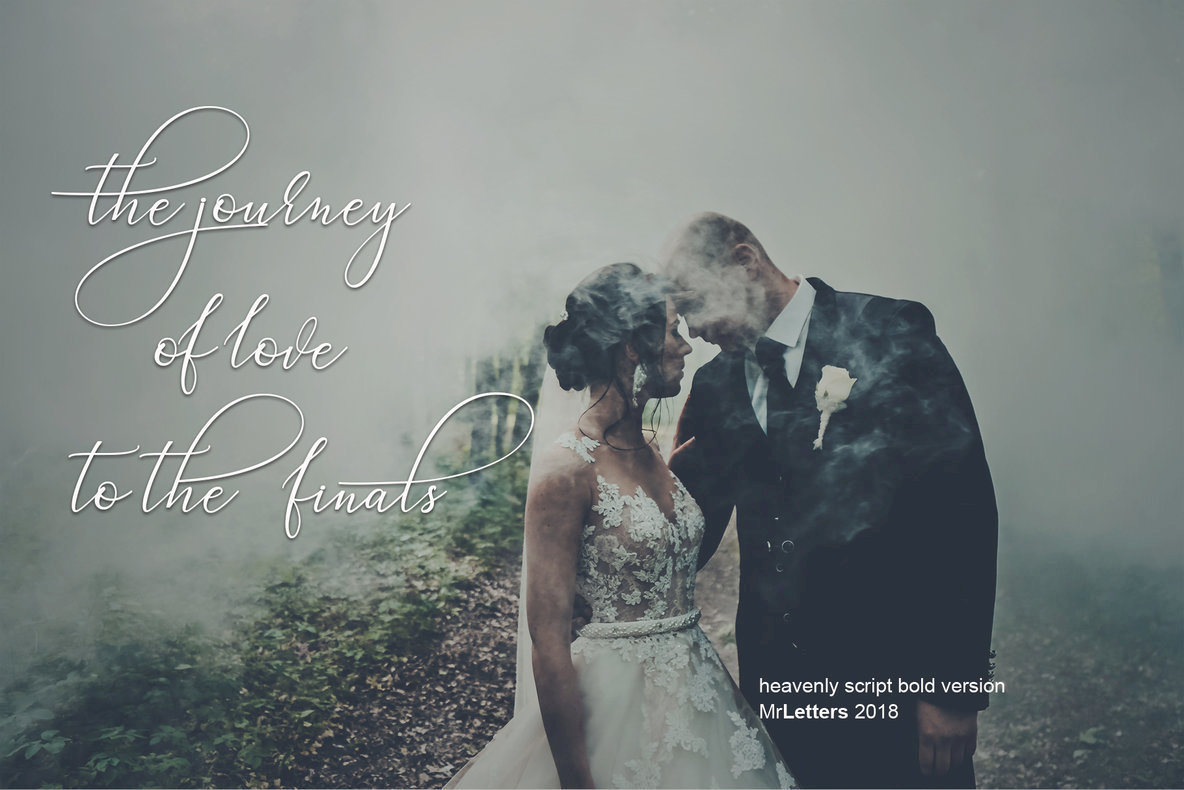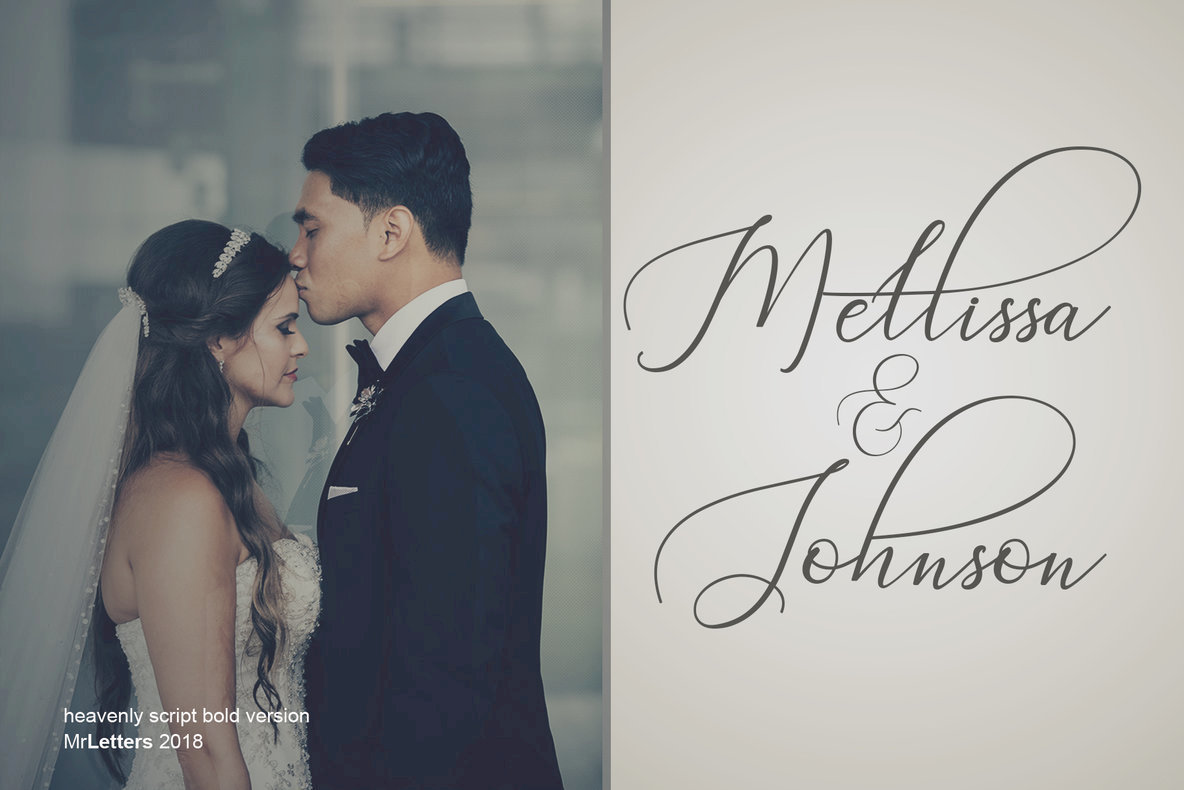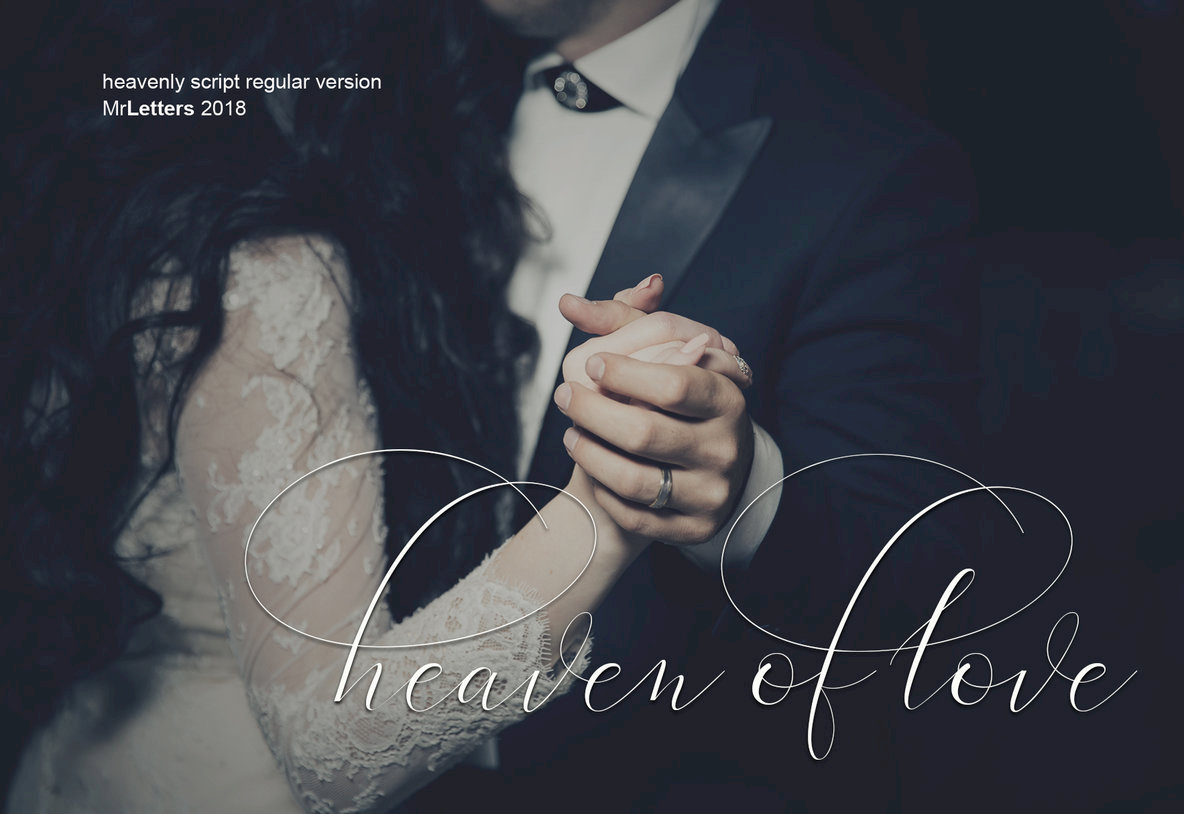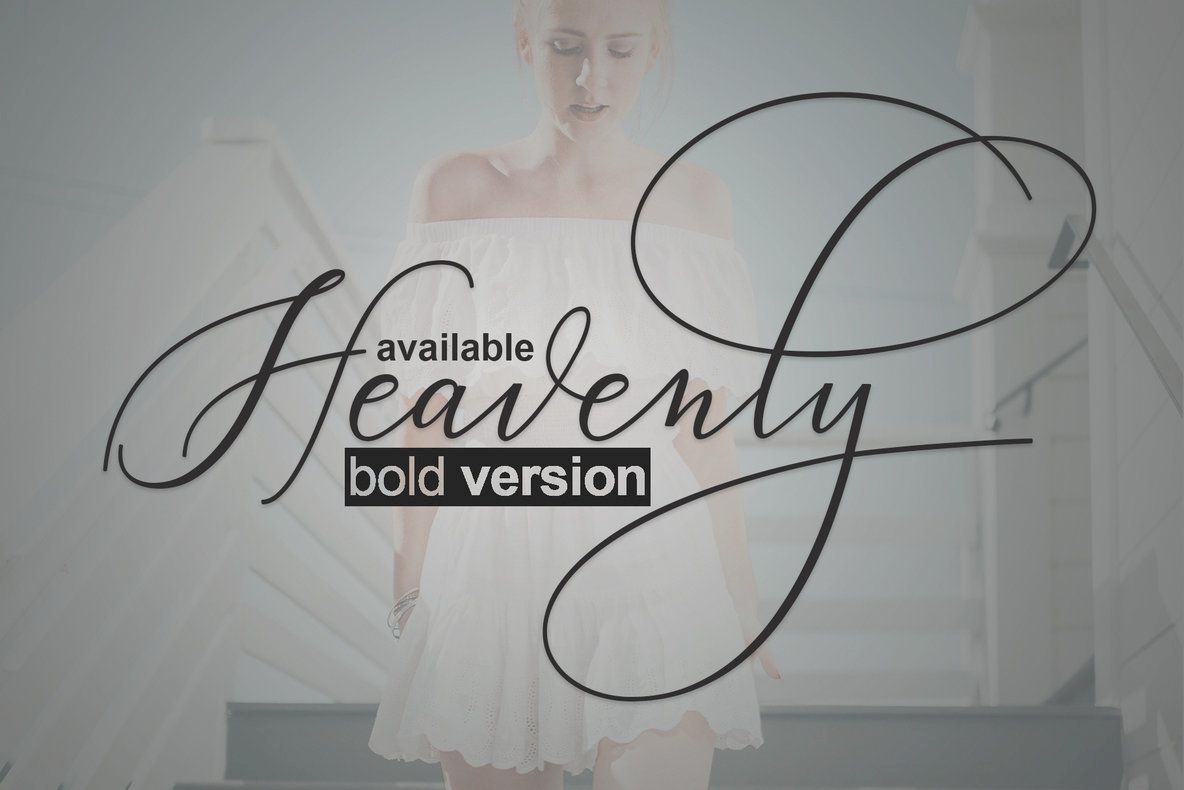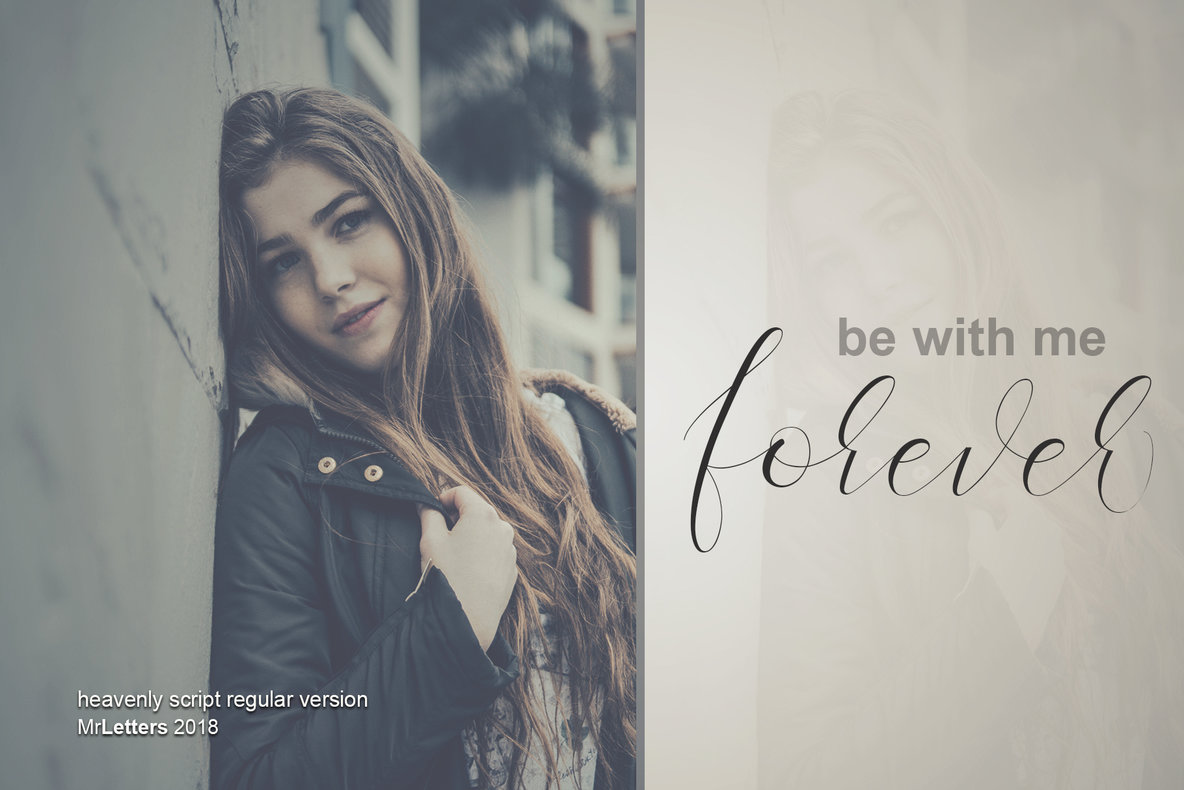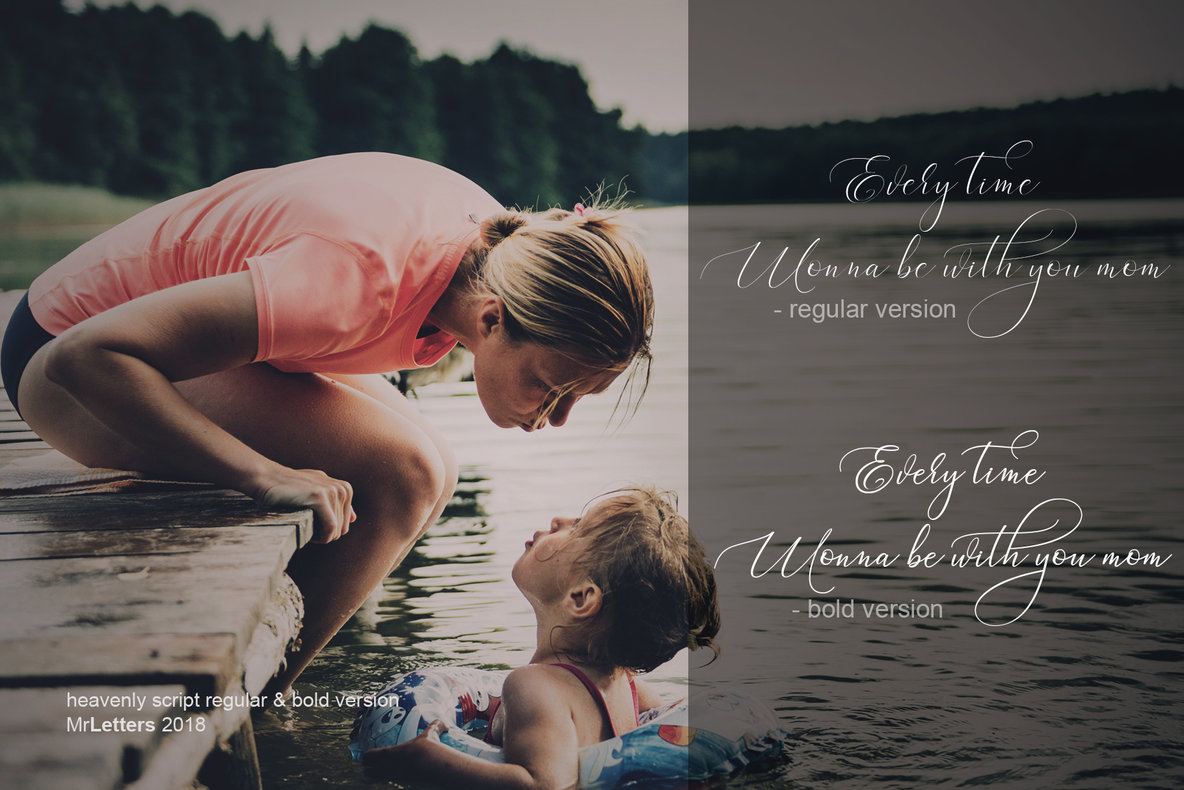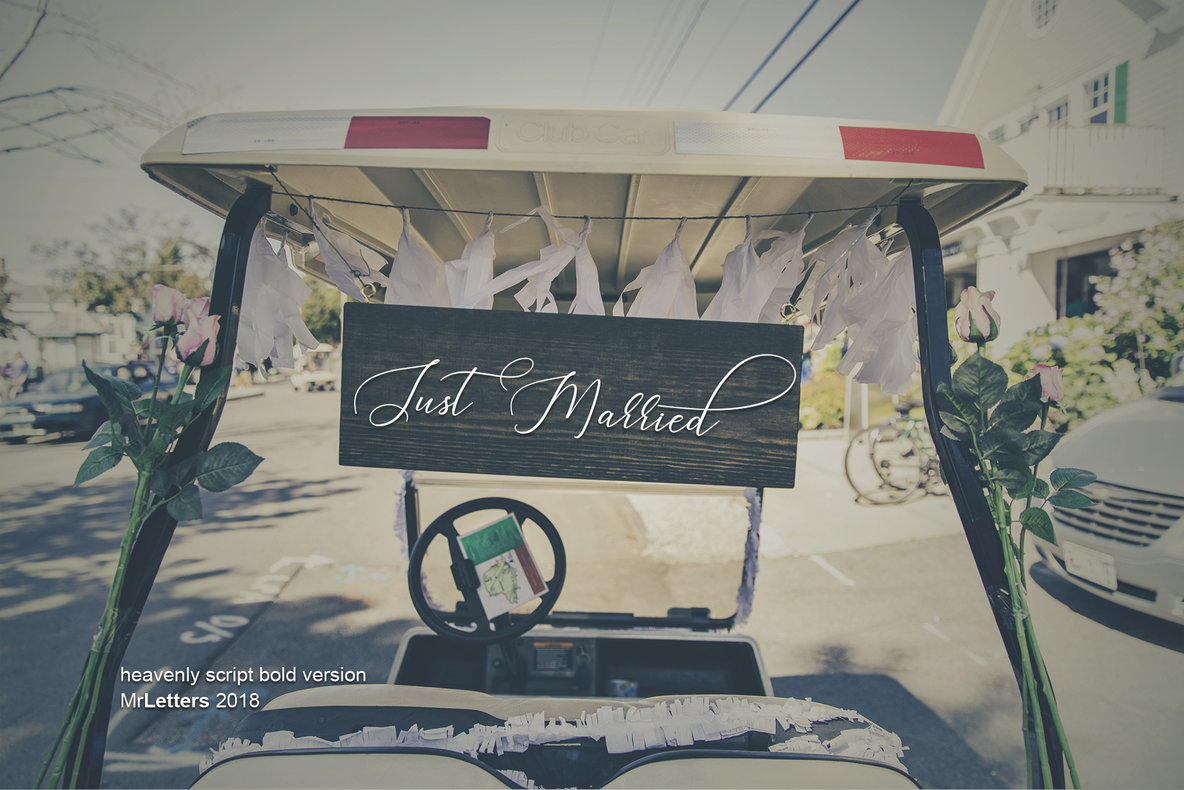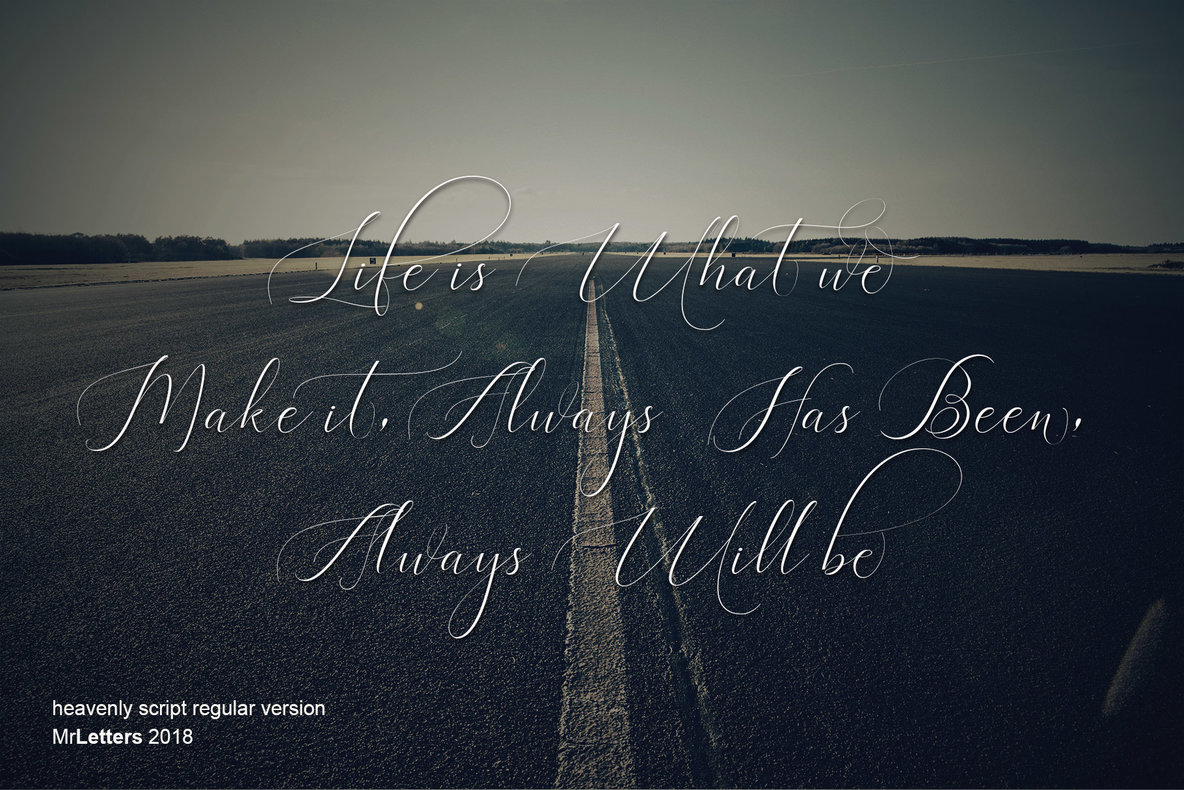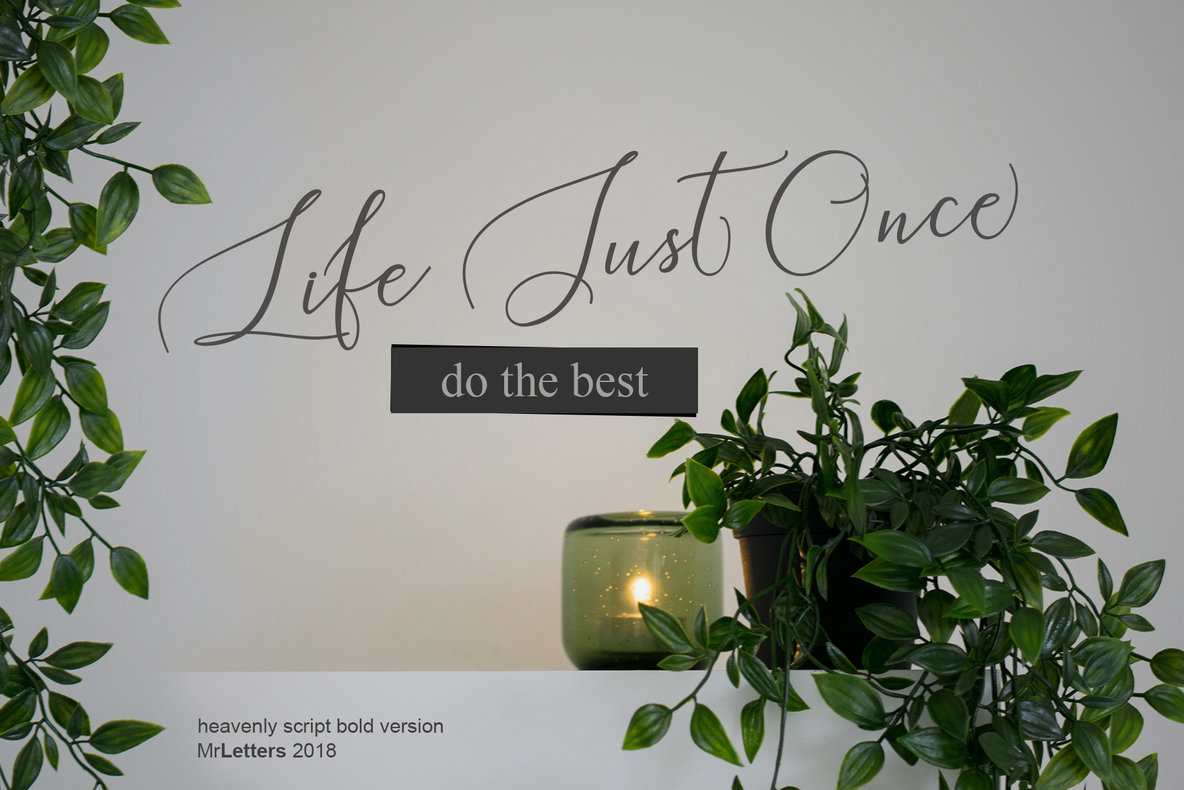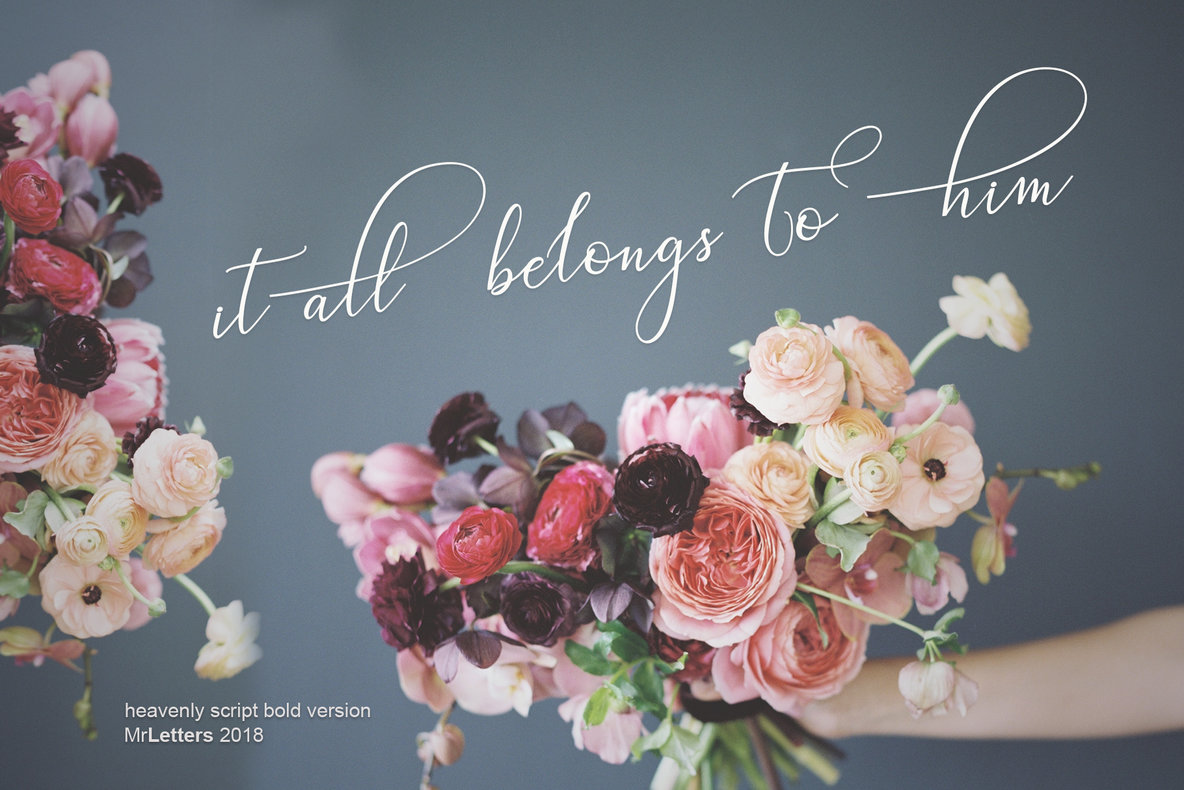
Heavenly Script Font
Heavenly Script emerges as a font that exemplifies modern calligraphy with its intricate handwriting style. Ideal for a multitude of design endeavors, it enriches everything from branding projects to wedding invitations, magazines, mugs, business cards, and posters. Features: Heavenly Script is your go-to choice when seeking elegance and modernity in design. Explore its range in software like Adobe Photoshop, Illustrator, InDesign, and Corel Draw, or via tools like Font Book for Mac or Character Map for Windows.Heavenly Script: A Modern Calligraphic Style